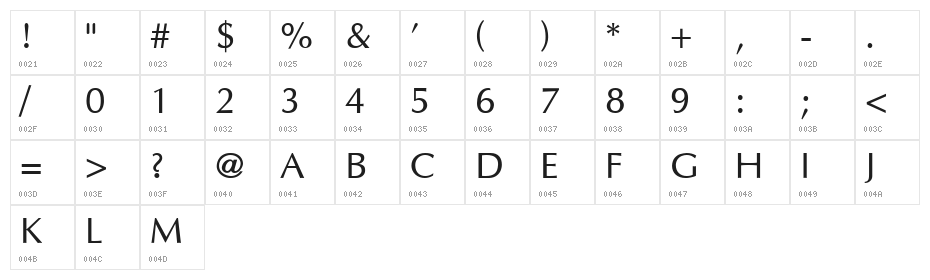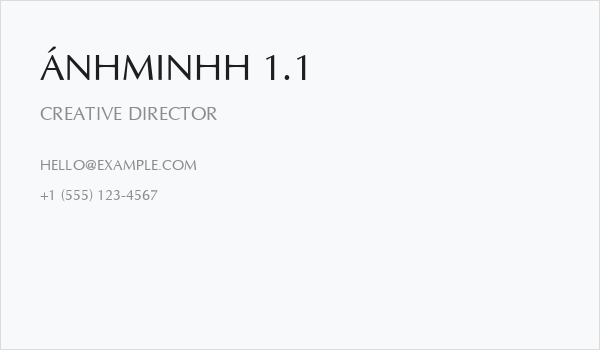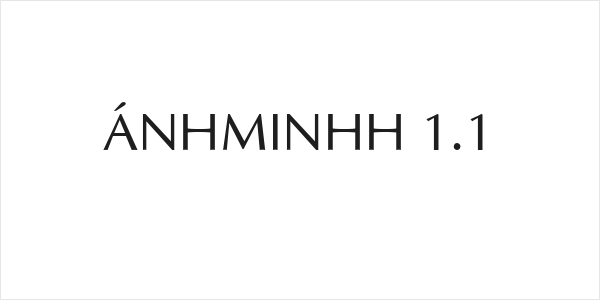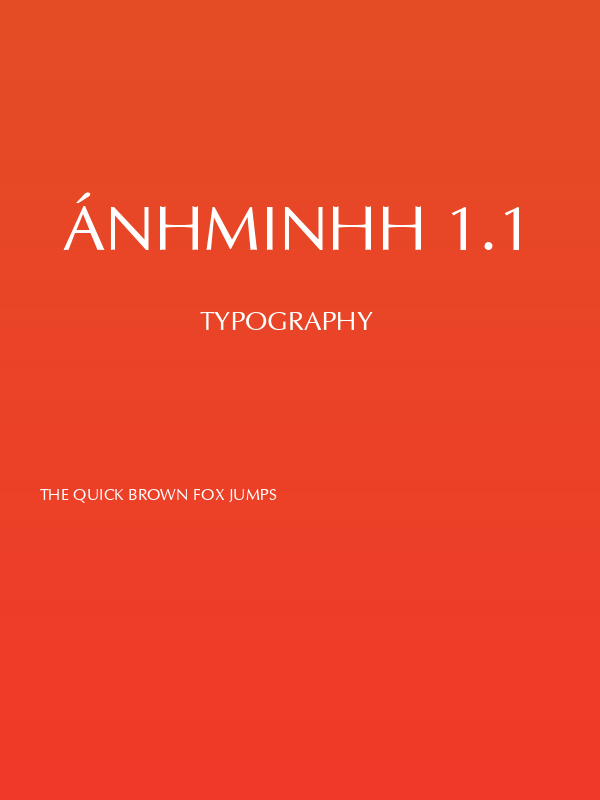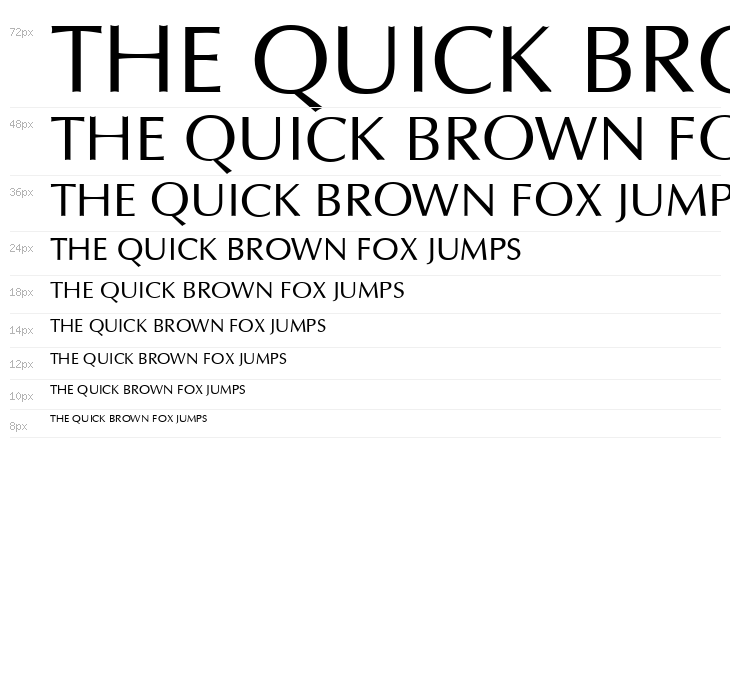
ÁnhMinhH 1.1 Font
ÁnhMinhH 1.1 Description
This font features a clean and modern sans-serif design, characterized by its sleek and straightforward lines. The characters are well-proportioned, with a slight variation in stroke width that adds a subtle elegance to the overall appearance. The uppercase letters are bold and commanding, while the lowercase letters maintain a consistent and harmonious flow. The numerals are clear and legible, making them suitable for various applications. Special characters are included, enhancing the font's versatility. Its simplicity and clarity make it ideal for both digital and print media.
| Proposed Projects | Ideal for branding, web design, advertising, and editorial layouts. |